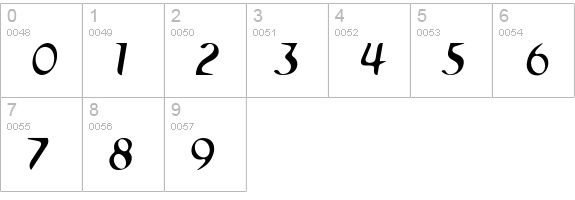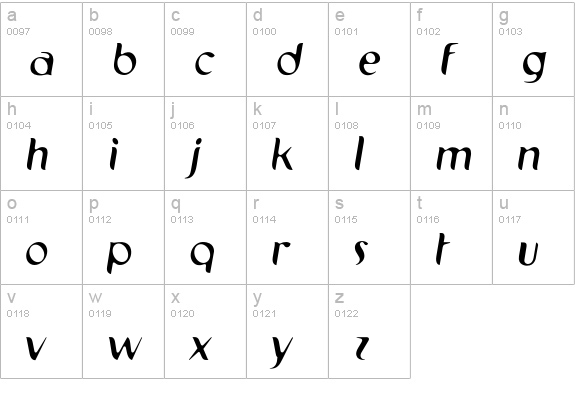
Introducing Pilot-1AL, a beautifully crafted font that brings a touch of elegance and sophistication to any design project. This versatile typeface is perfect for both personal and professional use, making it a must-have for designers, creatives, and typographers alike. Pilot-1AL boasts a sleek and modern aesthetic, with clean lines and a balanced letterform that exudes confidence. Its carefully designed curves and sharp edges create a harmonious blend of contemporary and classic elements, making it suitable for a wide range of applications. Whether you're working on a branding project, creating eye-catching headlines, or designing a stunning logo, Pilot-1AL has got you covered. Its legibility and readability make it ideal for both print and digital media, ensuring that your message gets across loud and clear. What sets Pilot-1AL apart from other fonts is its accessibility. It is freely available to download at FontsMarket.com, one of the leading sources for high-quality and diverse fonts. This means that you can easily incorporate Pilot-1AL into your designs without breaking the bank or compromising on quality. With Pilot-1AL, you have the freedom to unleash your creativity and bring your visions to life. Its extensive character set and multiple weights give you endless possibilities to create unique and captivating designs. Whether you're going for a sophisticated and refined look or a bold and impactful statement, Pilot-1AL has the versatility to cater to your specific needs. Don't miss out on this incredible font that combines style, functionality, and affordability. Download Pilot-1AL for free at FontsMarket.com today and elevate your designs to new heights.